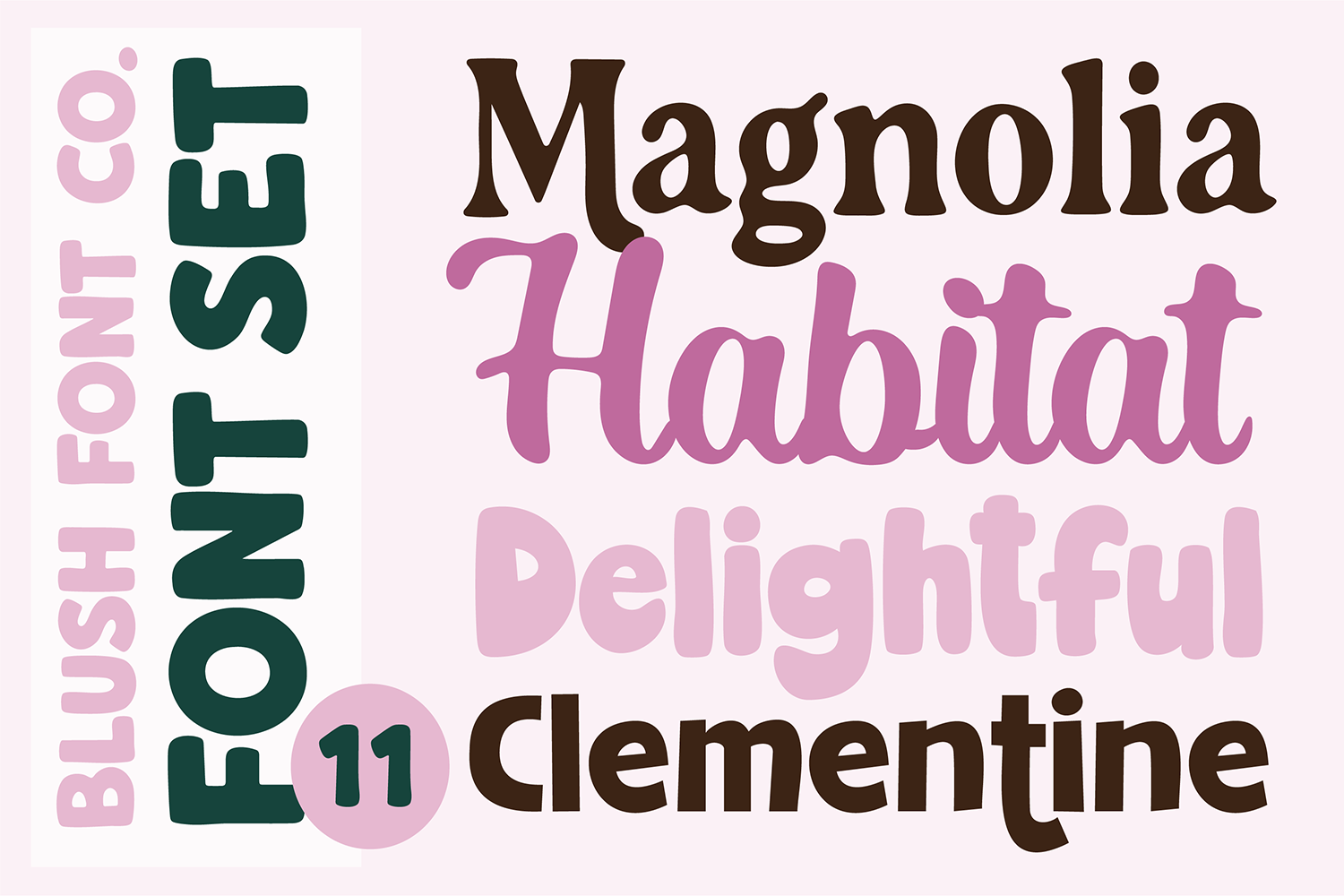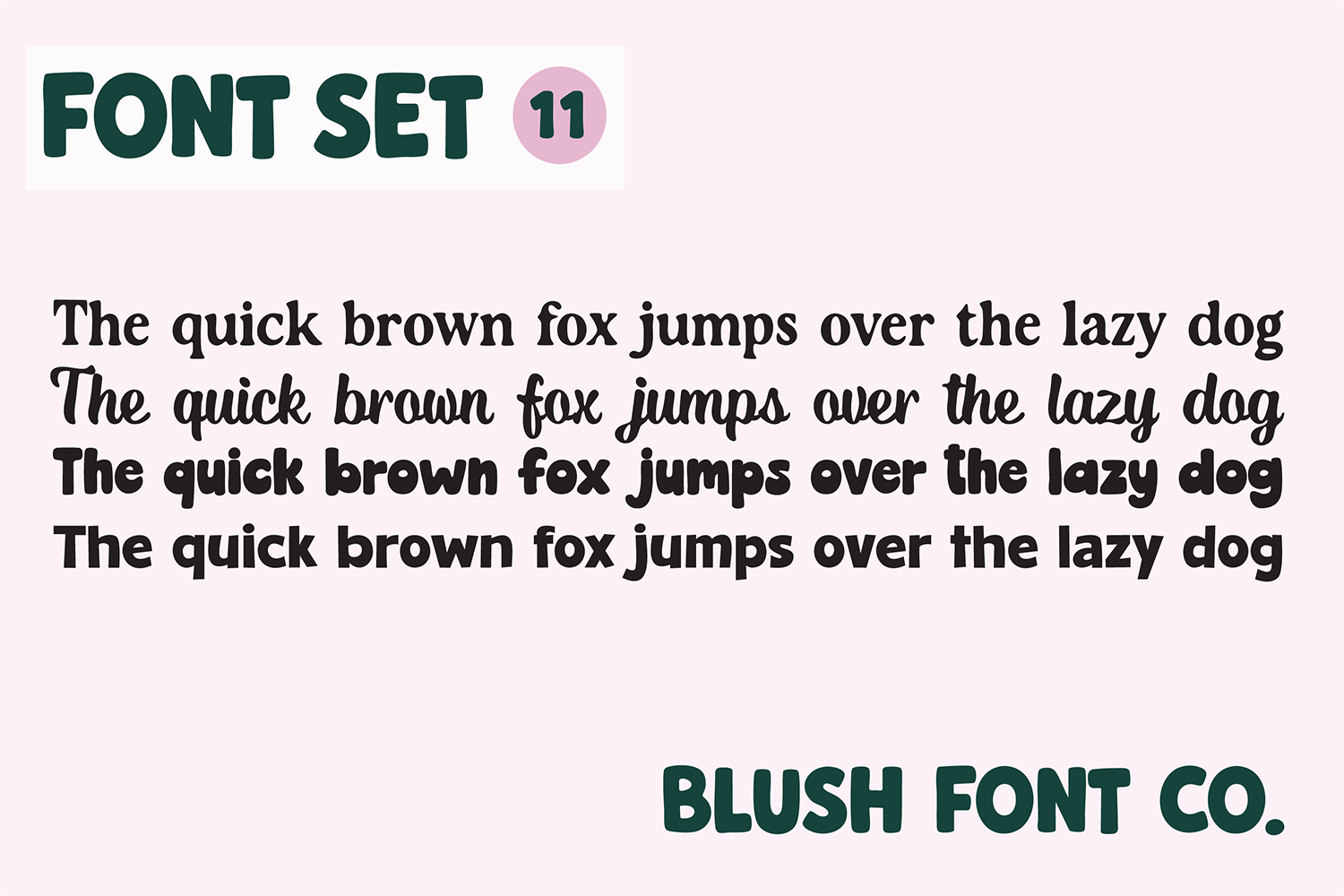
BFC FONT SET 11
Small bundle of my recent fonts! These are cute script, sporty, and bold fonts. These will work perfect for Cricut projects.
FONTS INCLUDED:
Magnolia
Habitat
Delightful
Clementine (Daybreak in Cricut Design Space)